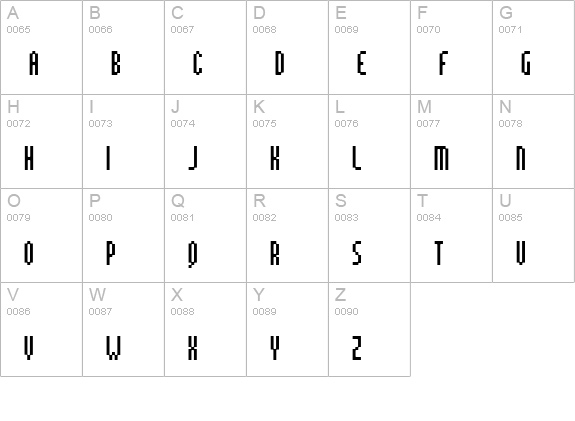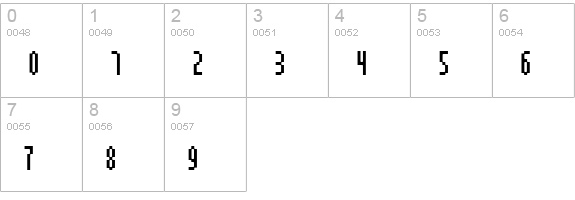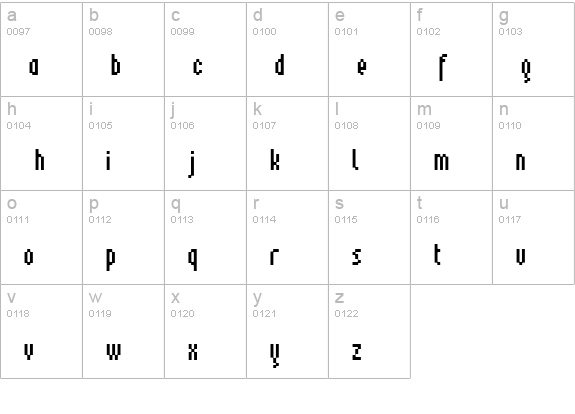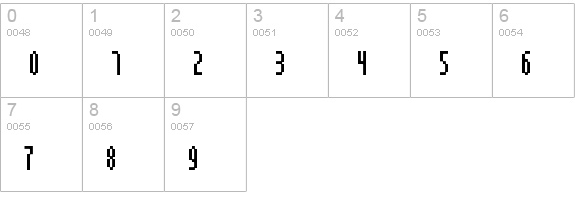
pinx Bold Font Details
pinx Bold is a strong, high-contrast variant in the pinx typeface family \xE2\x80\x94 well suited to headlines, attention-grabbing titles, and strong calls-to-action.
Introducing pinx Bold, a striking and modern font that exudes confidence and charisma. With its bold and powerful letterforms, pinx Bold commands attention and makes a statement in any design project. This versatile typeface is perfect for headlines, titles, logos, and branding materials that require an extra dose of impact. pinx Bold stands out with its unique and eye-catching design. The letters are meticulously crafted with sharp edges and clean lines, creating a contemporary and edgy look. This font is perfect for modern and forward-thinking designs that require a touch of boldness and flair. What's even better is that pinx Bold is available for free! Yes, you read that right. This amazing font can be freely downloaded at FontsMarket.com, a trusted source for high-quality fonts. Designed with usability in mind, pinx Bold is compatible with various design software and can be easily integrated into your creative projects. Whether you're a professional designer looking to elevate your work or an enthusiast wanting to add a touch of sophistication to personal projects, pinx Bold is the perfect choice. Its versatility, boldness, and the fact that it's freely available make it a must-have font for any designer's toolkit. So don't miss out on the opportunity to enhance your designs with pinx Bold. Download this incredible font now, completely free, at FontsMarket.com and unleash your creativity like never before.